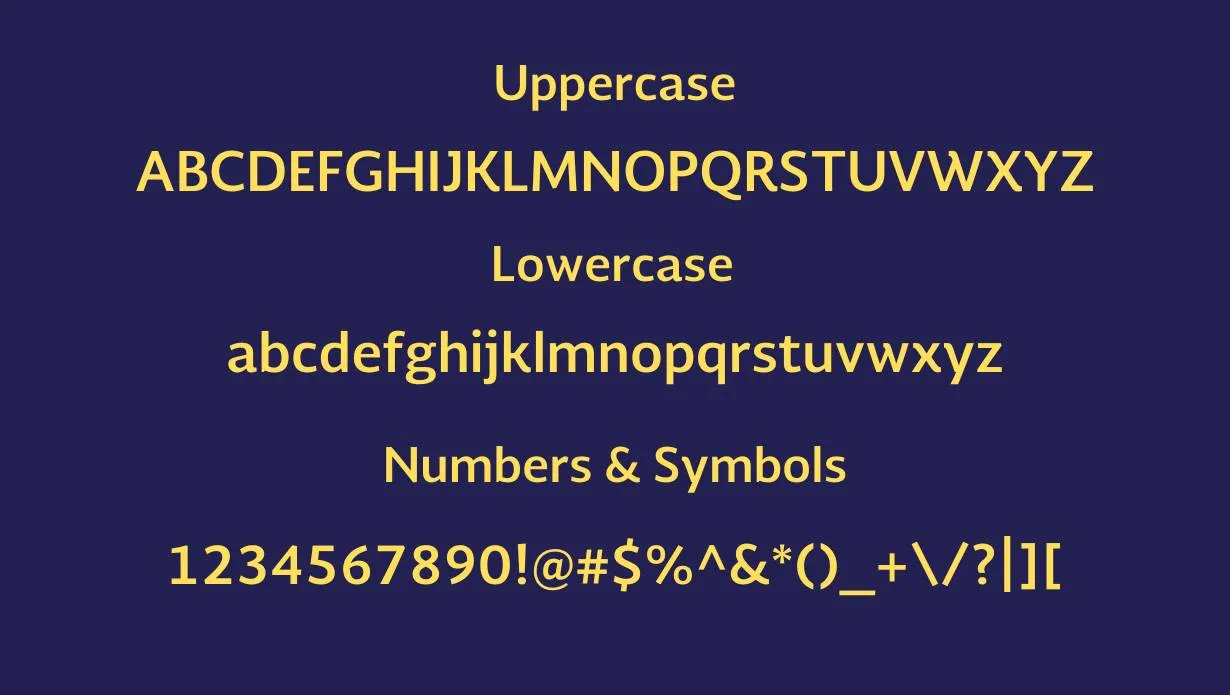
Soberana Sans Font strikes a balance between modernity and sophistication, offering a sleek and polished look. With clean lines and a contemporary aesthetic, this font is versatile for a range of design applications.
Whether you’re creating business materials, presentations, or resumes, Soberana Sans Font adds a touch of professionalism to your text, ensuring that your message is conveyed with a modern and refined appeal.
| Name | Soberana Sans Font |
| Designer | Cristobal Henestrosa |